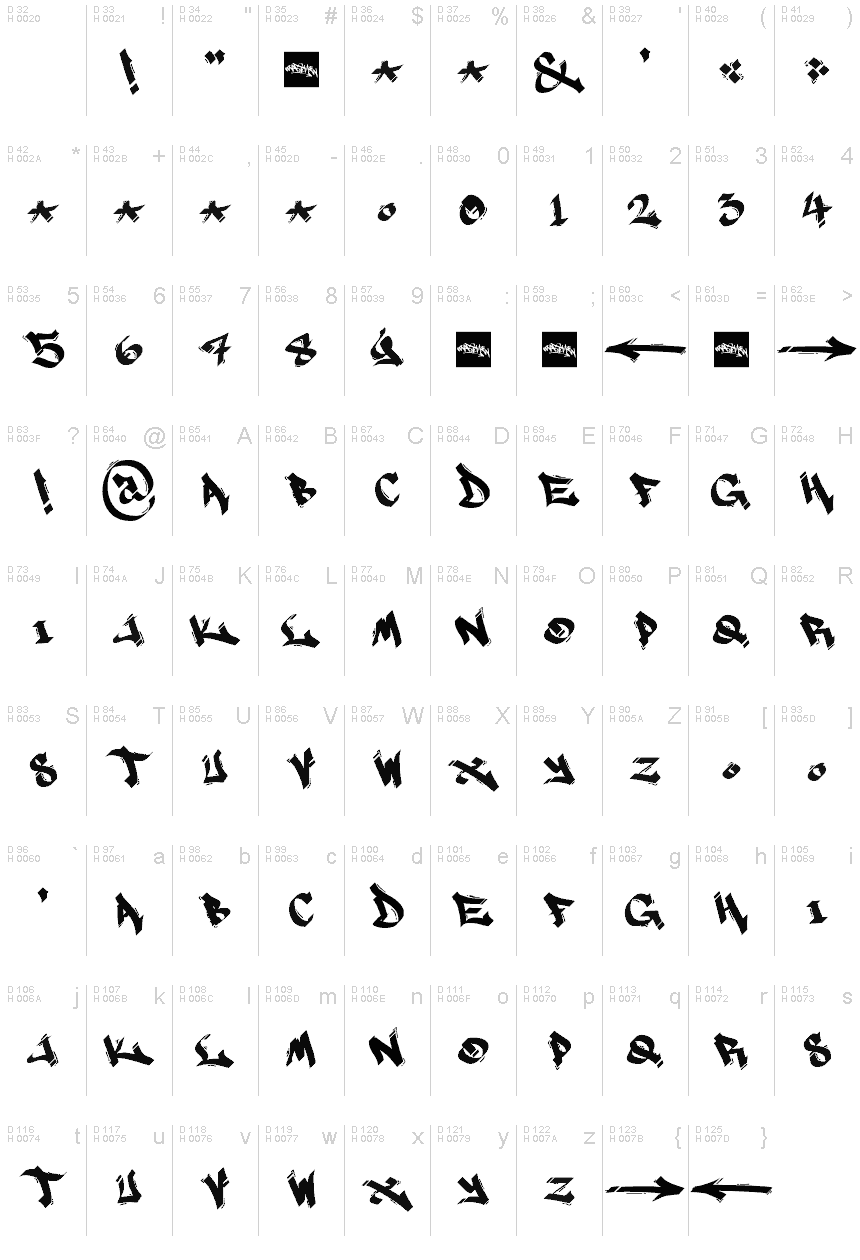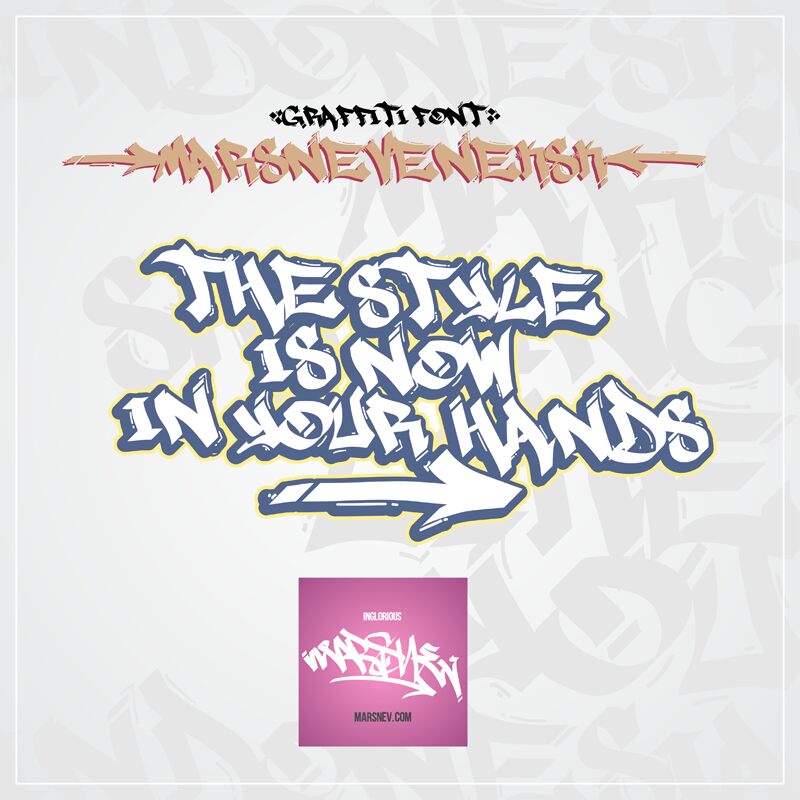
MARSNEVENEKSK Regular
Marsneveneksk is a dynamic graffiti-inspired font that exudes a sense of raw urban energy. Designed by Marsnev, this expanded typeface boasts a striking visual impact with its jagged, handcrafted aesthetic. The irregular strokes and uneven edges create a captivating illusion of spontaneity, making Marsneveneksk an ideal choice for bold, attention-grabbing designs.
Its versatility lends itself well to a variety of applications, from eye-catching headlines and logos to gritty editorial layouts and street-inspired branding. The font's expressive nature and expansive width make it a powerful tool for designers seeking to convey a sense of edgy, rebellious style.